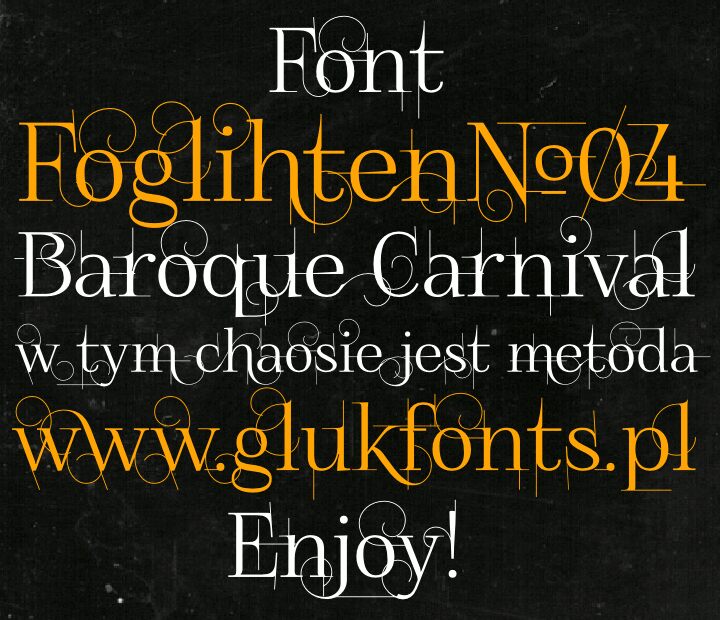
FoglihtenNo04 by gluk is a free curly decorative display font with the poise of a fashion serif. Its tall, high-contrast letters carry extravagant hairline loops and long vertical flourishes, creating an ornate silhouette that changes noticeably across the alphabet.
Editorial design is a natural home for its mix of elegance and eccentricity, especially on fashion covers and culture features. It also suits perfume packaging and boutique branding. The looping strokes can echo ribbon, jewelry, or fine line illustration, making the lettering part of the decorative motif rather than a neutral caption.